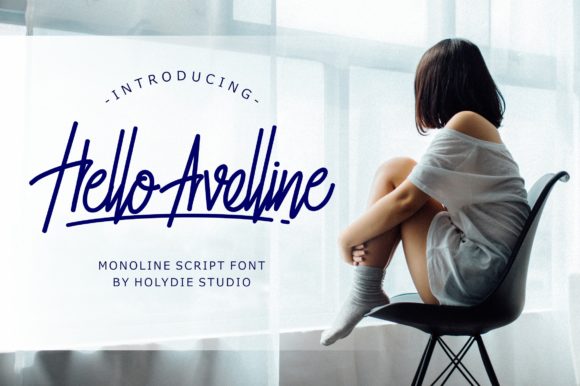
Hello Avelline Font
In a world saturated with digital noise, your visual identity is your clarion call, cutting through the cacophony and resonating with your audience. Allow us to introduce Hello Avelline, a script font that's more than just a collection of letters; it's an artistic symphony, a visual masterpiece that transforms your words into captivating melodies.
Holydie Studio, the creative minds behind this font, have meticulously crafted Hello Avelline to be a monoline script font that dances across your designs with effortless grace and elegance. Its meticulously crafted curves and delicate flourishes evoke a sense of timeless sophistication, inviting your audience to embark on a journey through your brand's narrative.
Hello Avelline's versatility is a testament to its boundless potential. Whether you're weaving your logo into a visual symphony, crafting a magazine that captivates and inspires, or designing business cards that leave a lasting impression, this font rises to the occasion, adding a touch of artistry and finesse to every project it graces.
Imagine your brand's name, rendered in Hello Avelline's enchanting script, becoming an instant conversation starter, a visual hook that draws eyes and ignites curiosity. Your posters, adorned with this font's elegant charm, will command attention in any setting, transforming ordinary messages into captivating works of art.
Hello Avelline is more than just a font; it's an extension of your creative vision, a tool that empowers you to express your brand's personality with unparalleled eloquence. Its ability to transform mundane text into captivating visuals is a testament to its transformative power, elevating your brand to new heights of recognition and engagement.
With Hello Avelline at your disposal, you gain access to a limitless palette of creative possibilities. Its monoline script style lends itself effortlessly to a myriad of design aesthetics, from the classic and timeless to the modern and edgy. Whether you seek to make a bold statement or weave a delicate narrative, this font will guide you, empowering you to craft designs that resonate with your audience on a profound level.
Welcome to the world of Hello Avelline, where typography transcends its functional role and becomes an art form. Experience the transformative power of this exquisite script font and witness your brand blossom into its full potential. Hello Avelline is not just a font; it's an invitation to embark on a creative odyssey, where every design becomes a masterpiece.